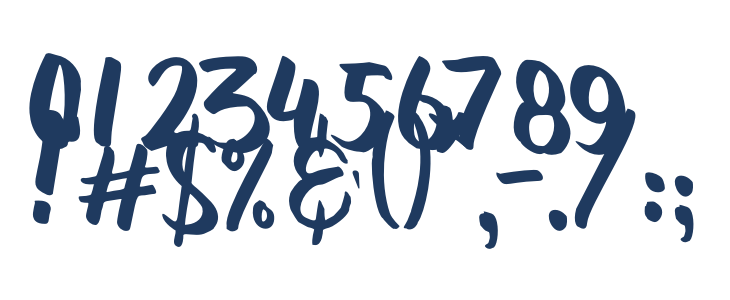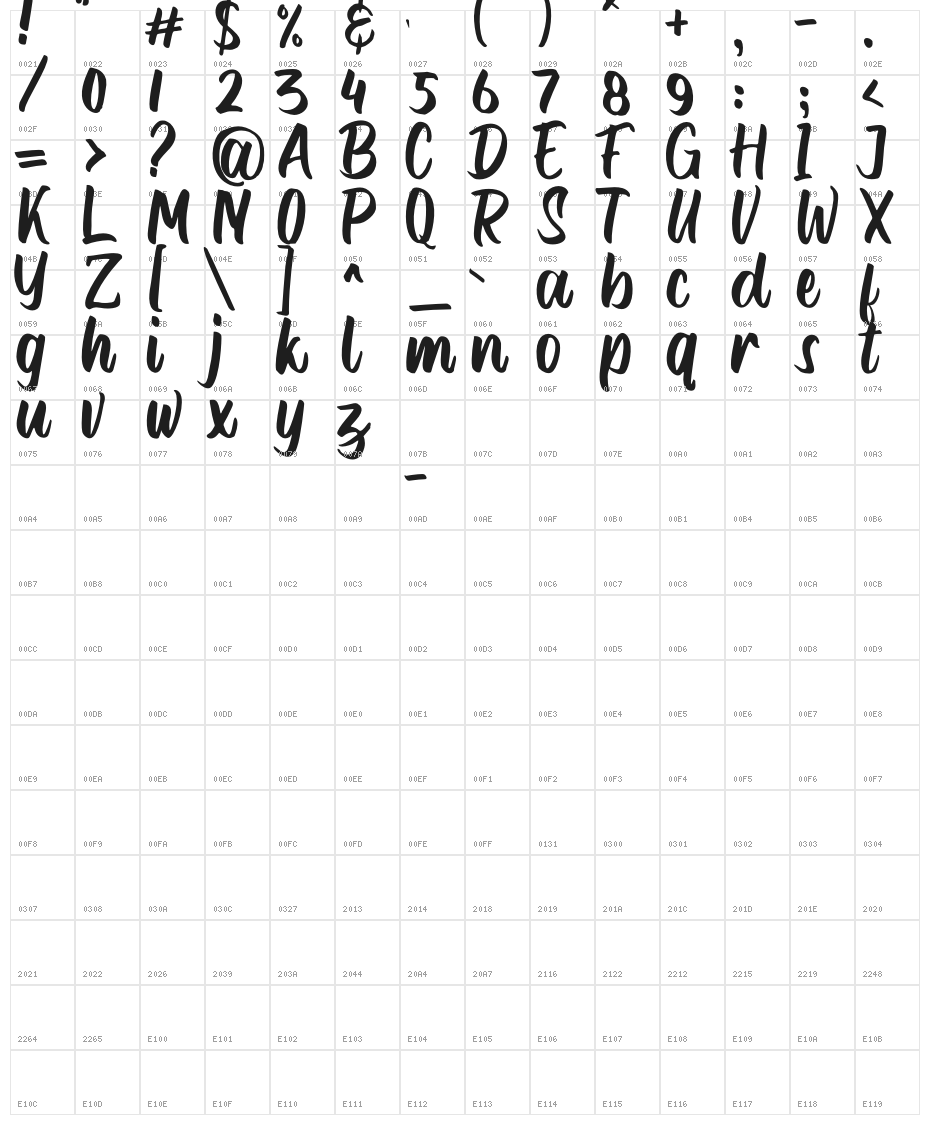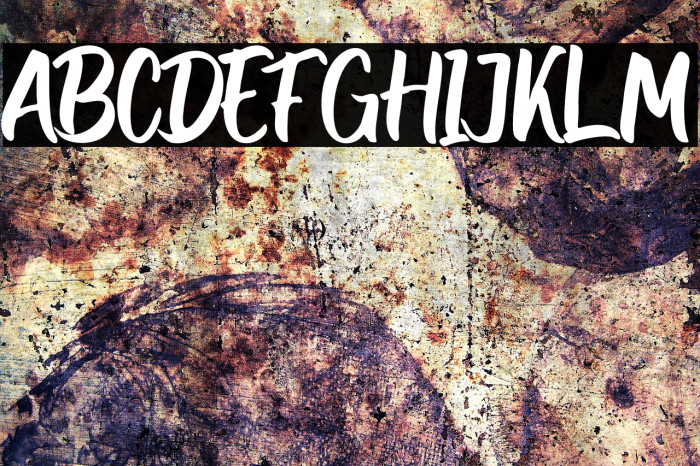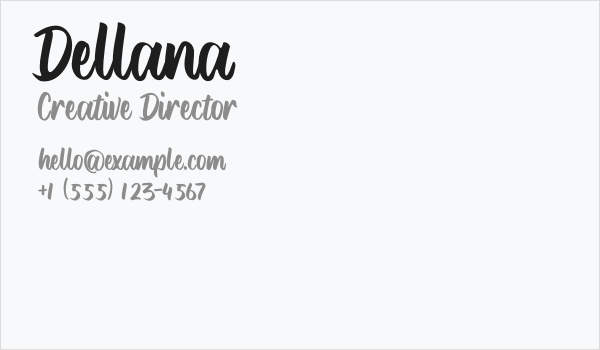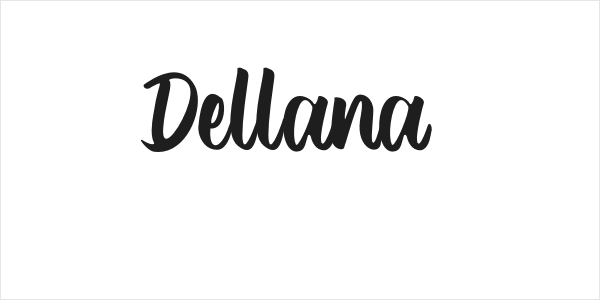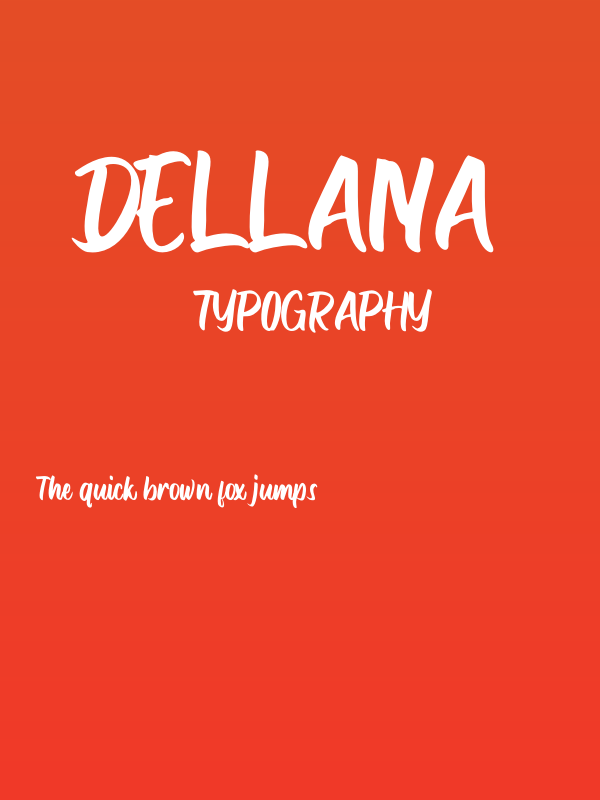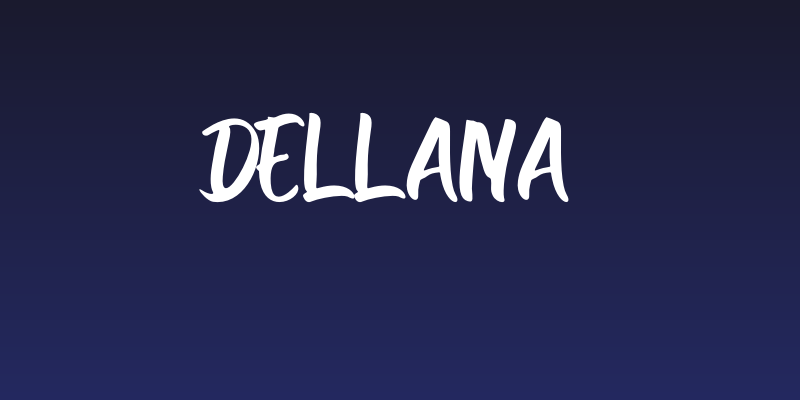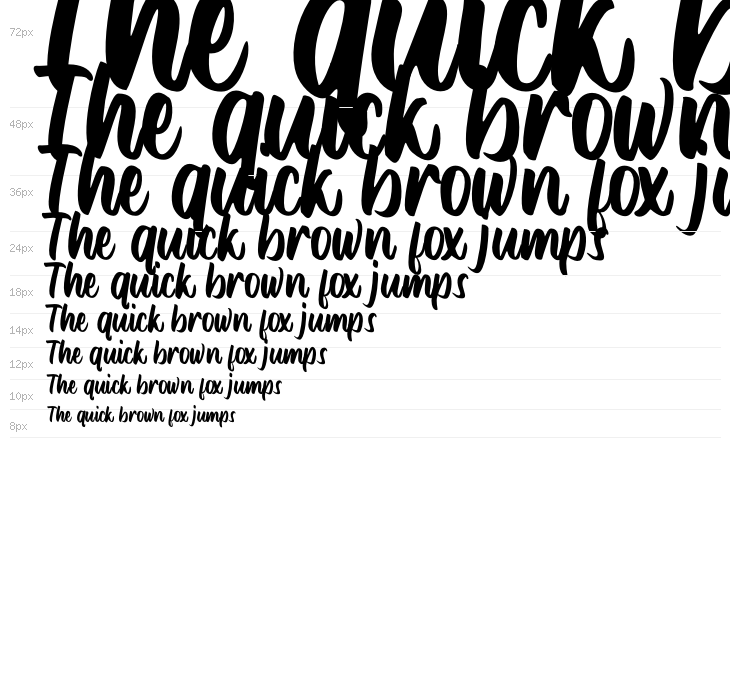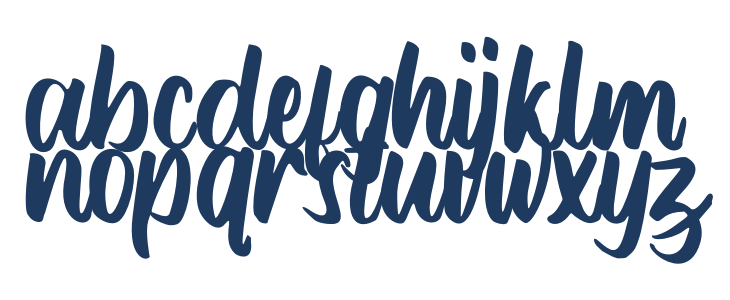
Dellana Font
Dellana Description
This font features a bold, expressive style with a handwritten appearance. The letters are fluid and dynamic, showcasing a brush-like texture that adds a sense of movement and personality. The uppercase and lowercase characters maintain a consistent flow, with slightly exaggerated curves and strokes that enhance its artistic flair. Numbers and special characters are equally bold and maintain the same energetic style, making them stand out. This font is ideal for projects that require a personal touch or a creative, informal vibe.